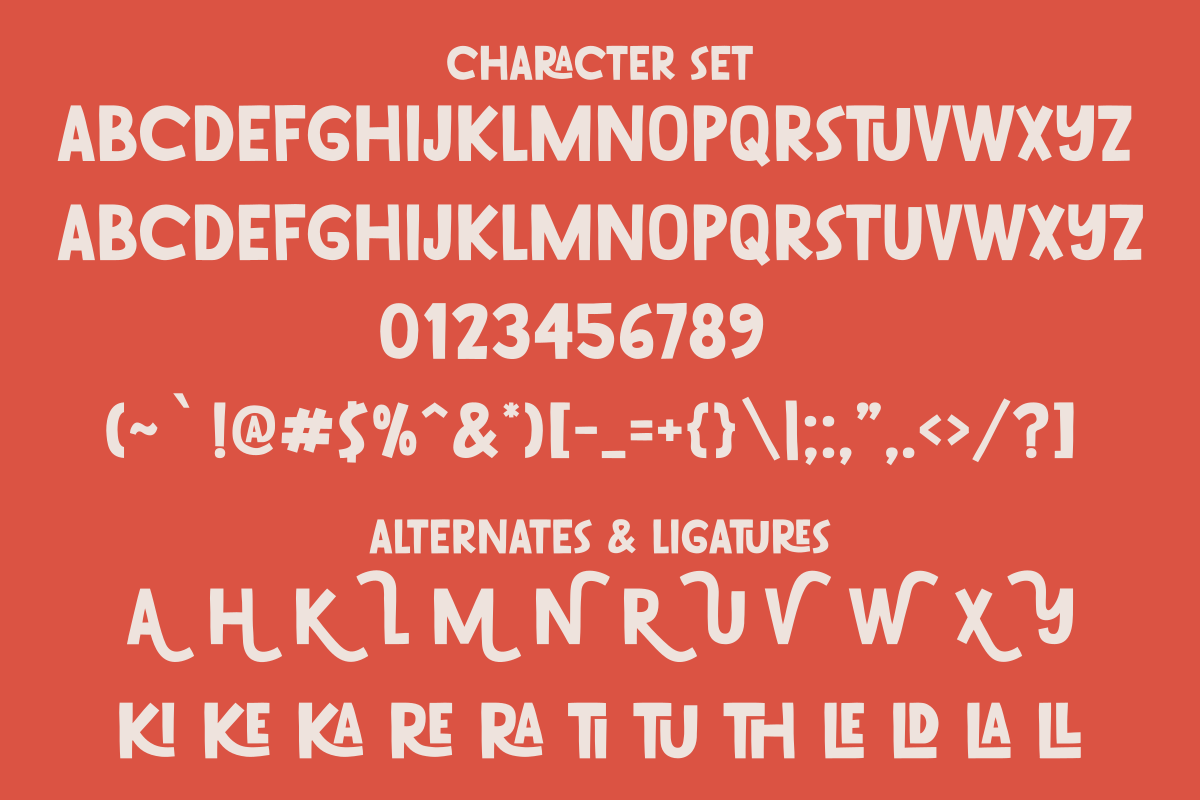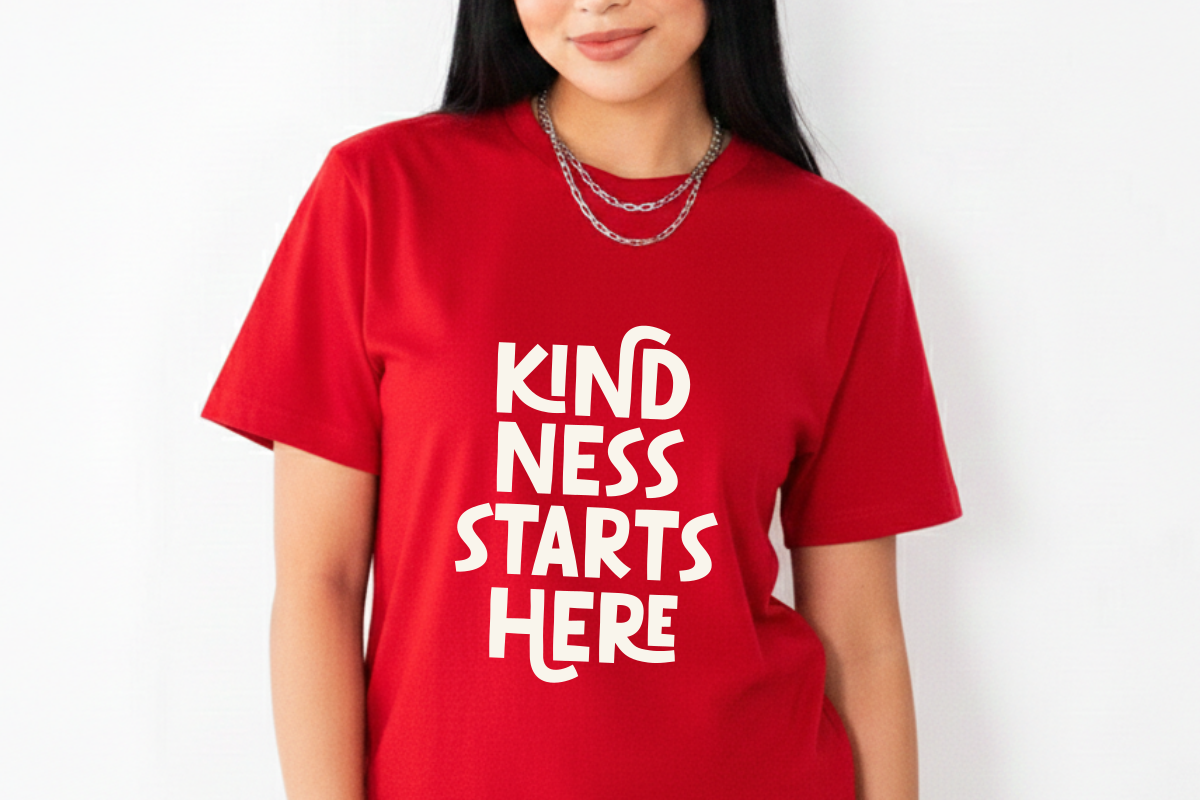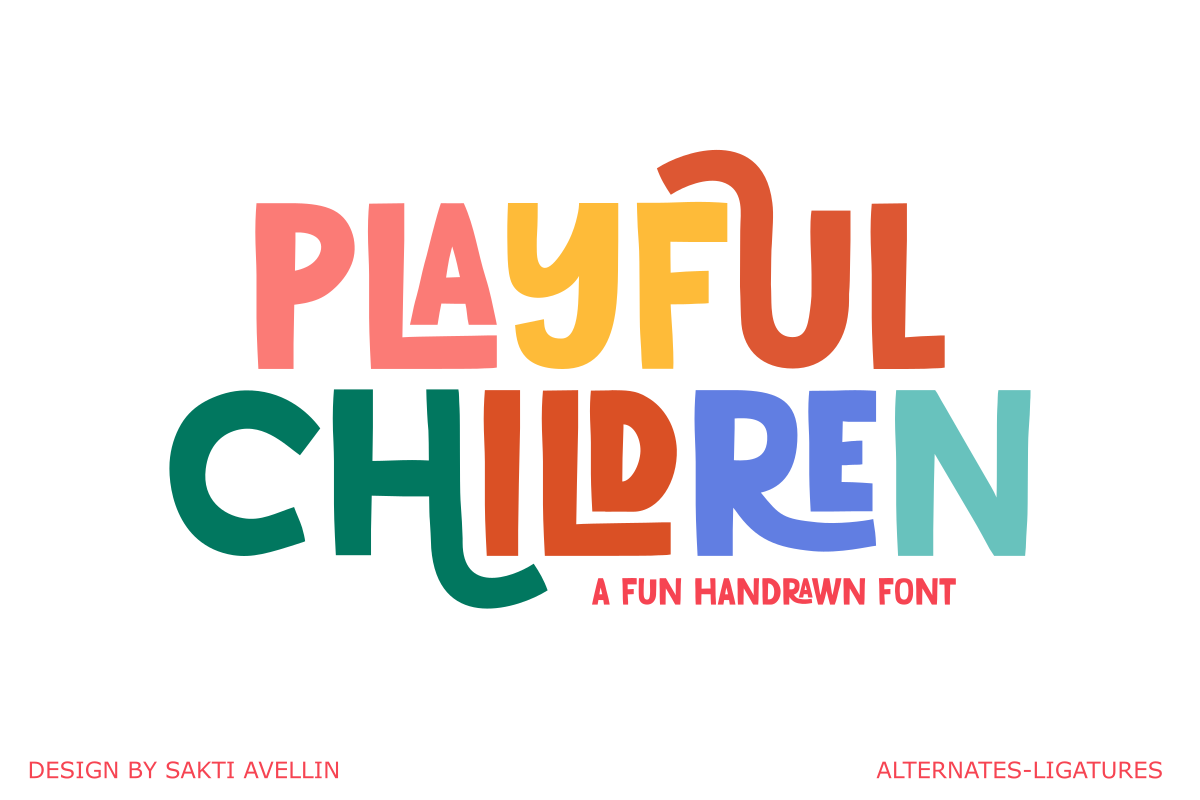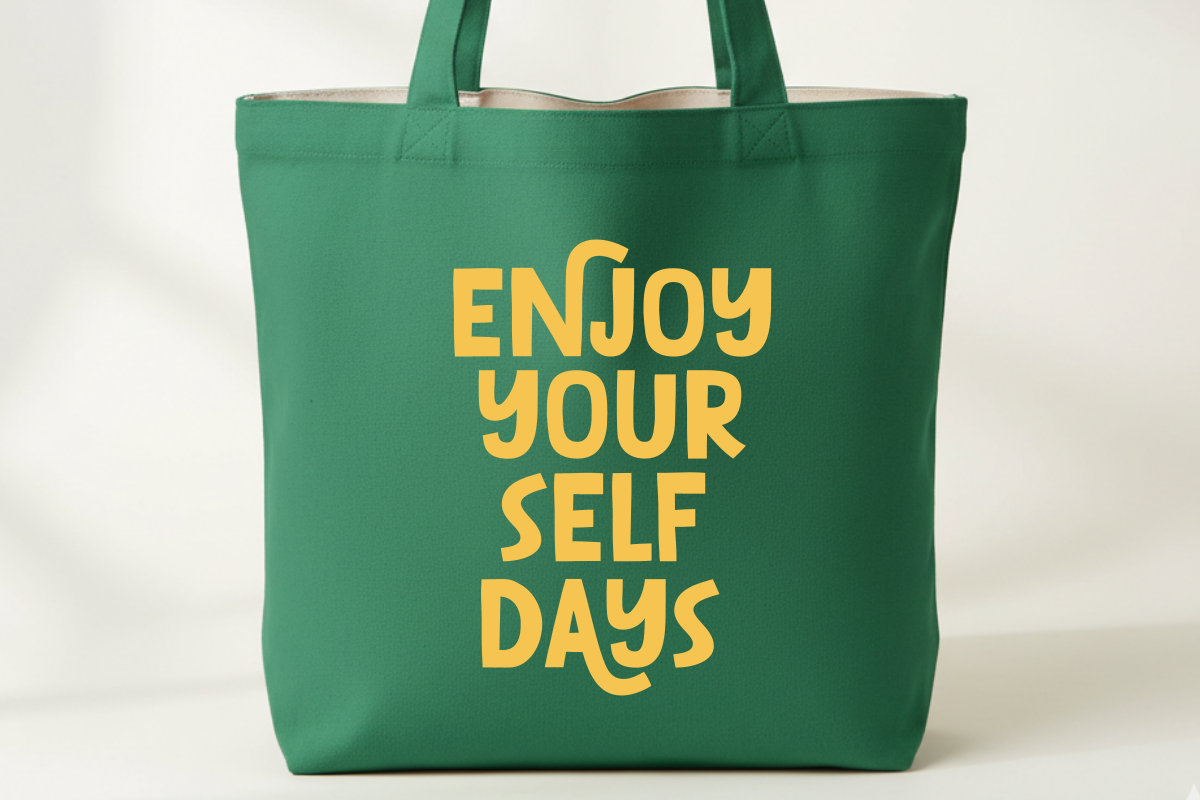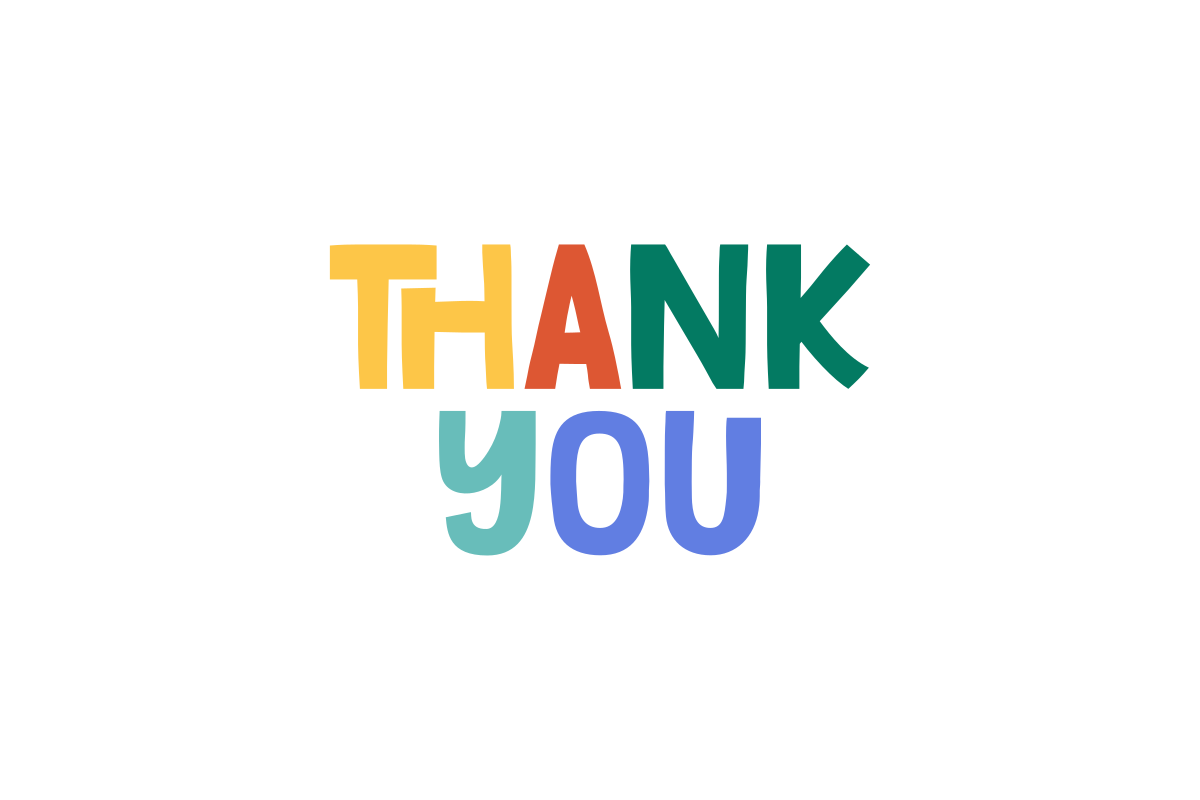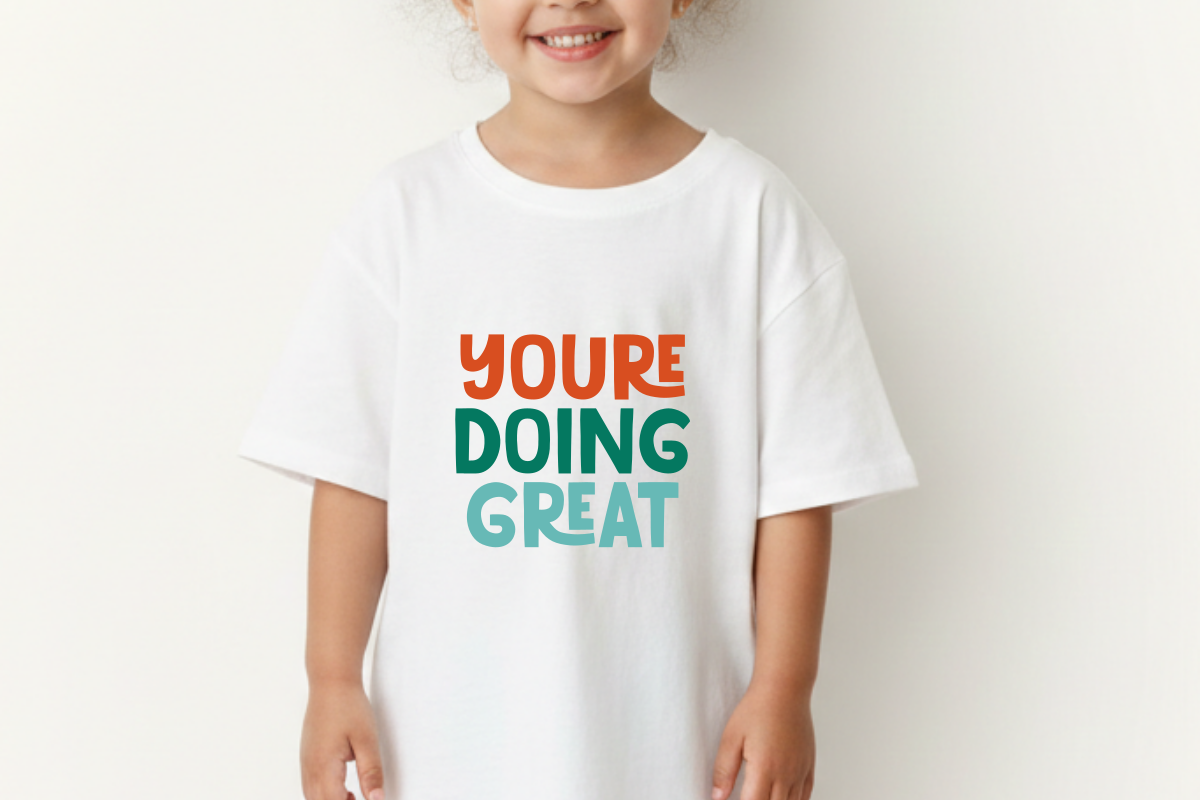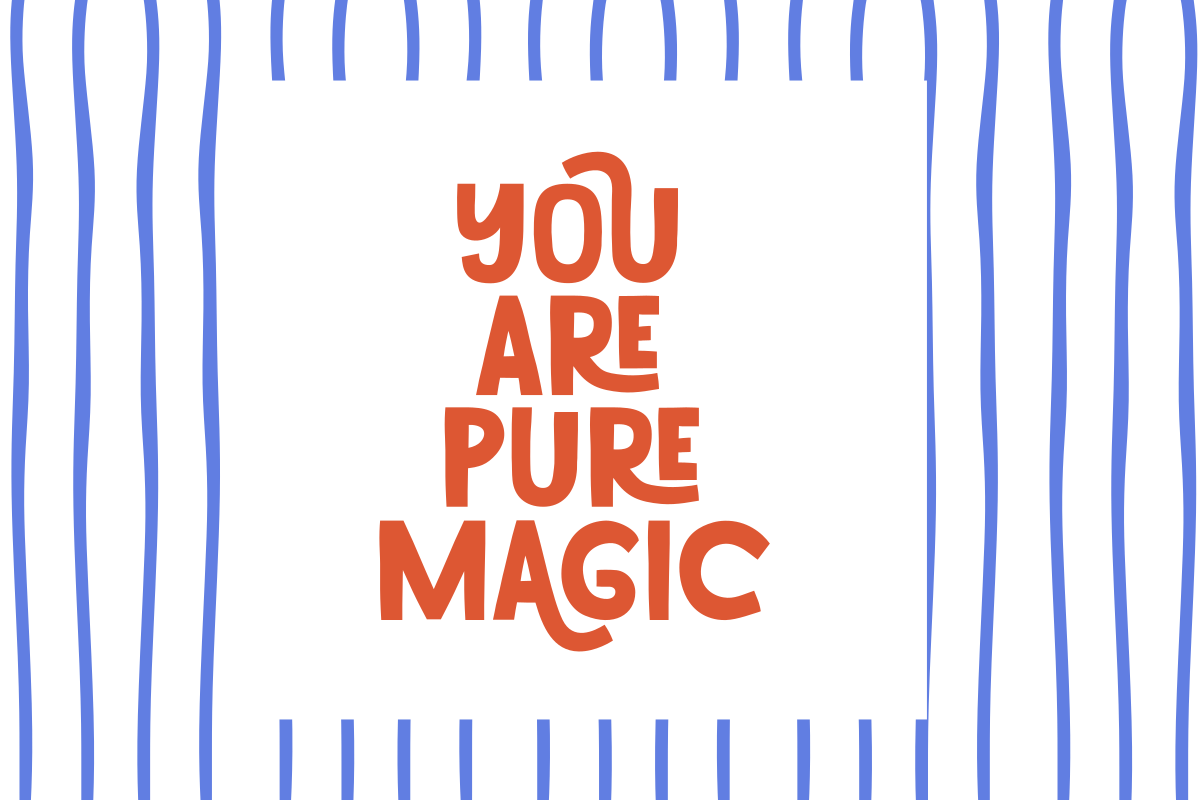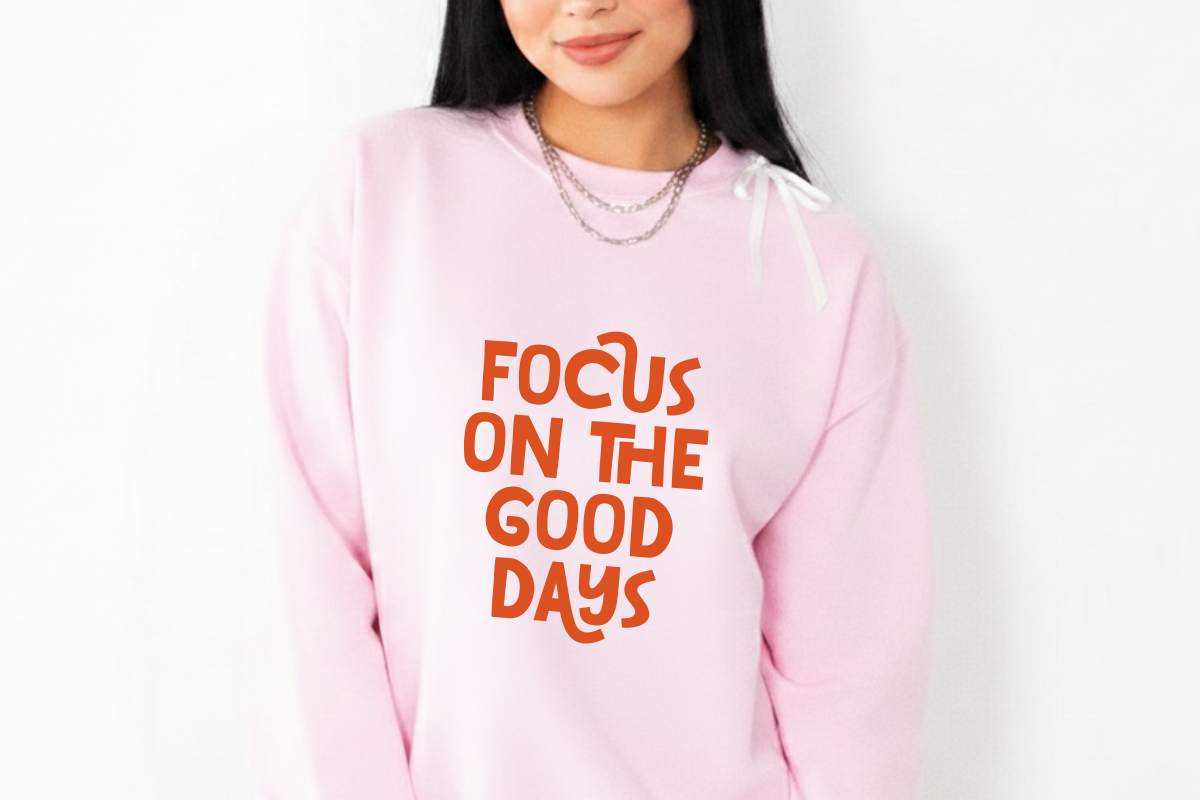
Playful Children - Fun Handrawn Font
Playful Children is a fun hand-drawn font that bring a burst of joy and creativity to your designs. This cute display typeface features irregular, whimsical letterforms that capture the pure and energetic essence of childhood. Perfect for children's books, birthday invitations, school projects, apparel, stickers, and cheerful branding. It also includes alternates and ligatures, giving you the flexibility to create truly unique and custom-looking text layouts. Whether you are creating products for a nursery or making fun social media graphics, Playful Children adds a lovely handcrafted vibe to every project.